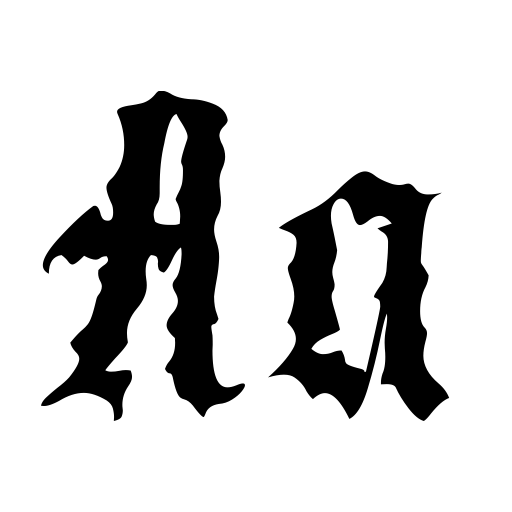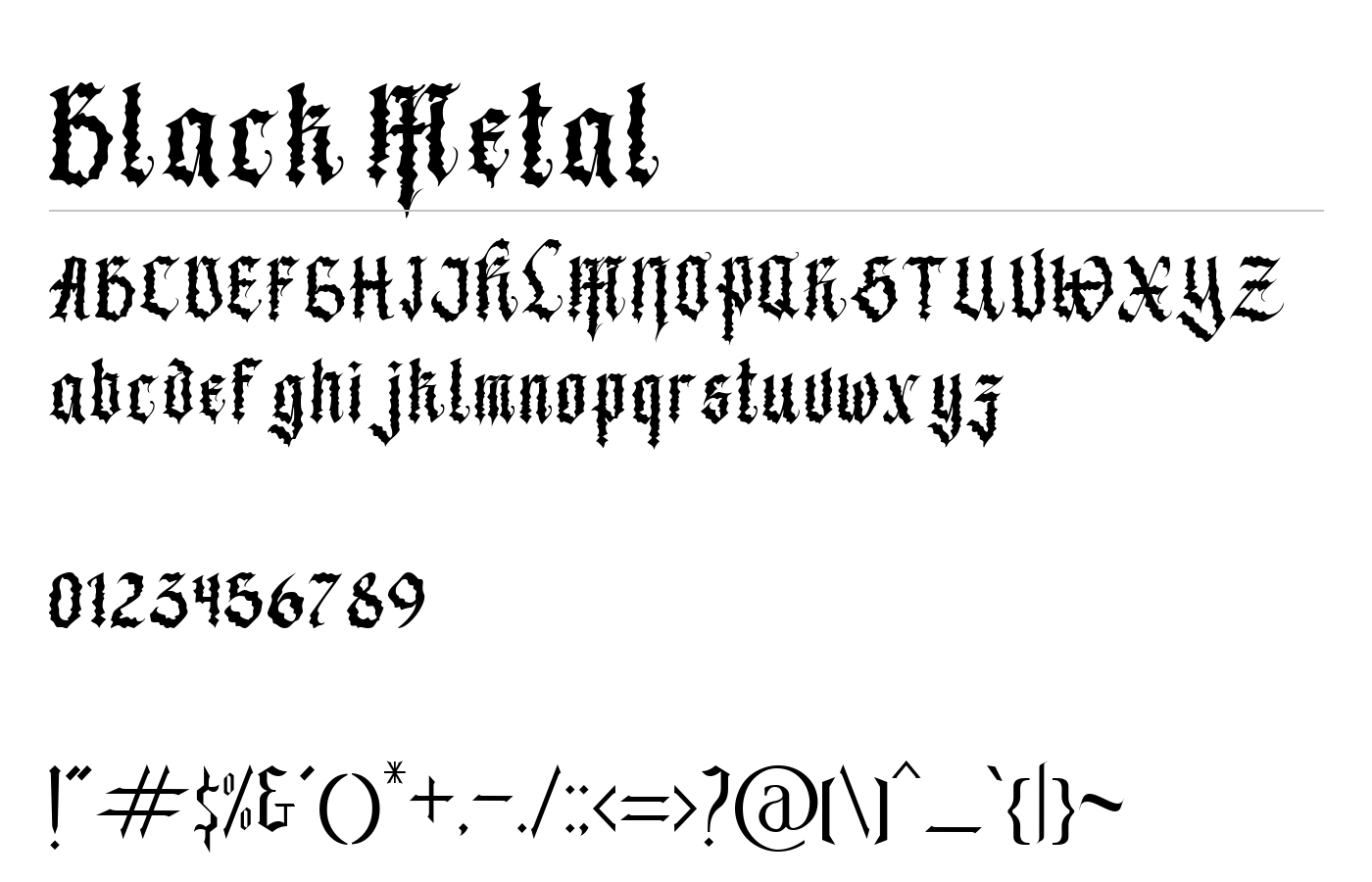
Black Metal Font is a bold, gothic-style serif typeface with sharp, jagged edges that evoke a dark, intense atmosphere reminiscent of heavy metal music culture. Its high-contrast strokes and elaborate, spiky serifs give it a dramatic and somewhat aggressive look, making it perfect for logos, posters, or branding that aims to convey a powerful, edgy, and rebellious vibe. This font works best in headlines or display use where strong visual impact is desired, rather than in body text.
Black Metal Font
About Black Metal Font